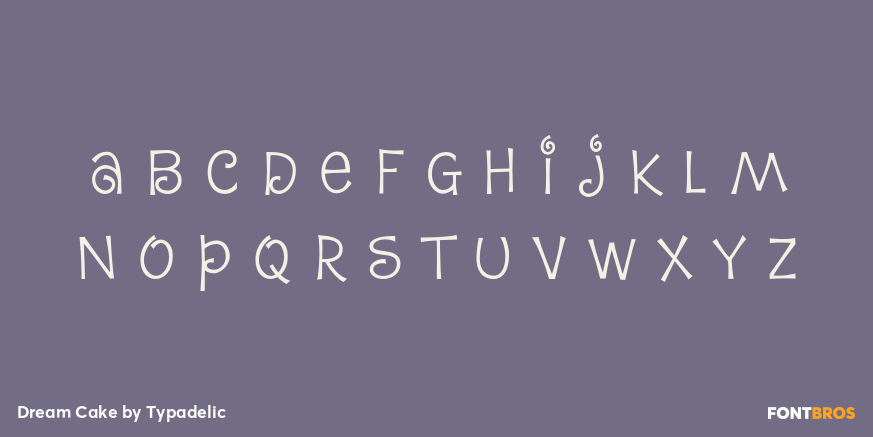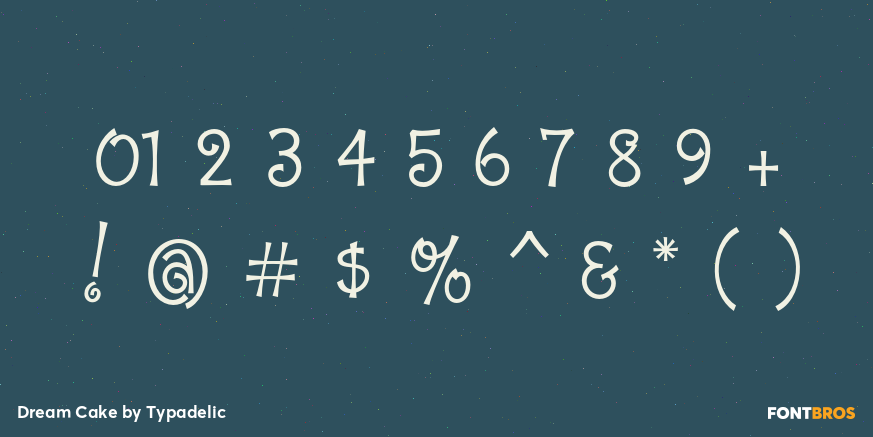
Dream Cake
Font Family by Typadelic
While I was developing this font, my mother kept feeding me something she calls ?Dream Cake?. This indescribably delicious confection fueled my inspiration (there's nothing like a constant sugar-high to keep you going!) and the result is this cute little font. Dream Cake is casual in nature and as with all of my fonts, you'll find some quirky little twists to make your type projects interesting.